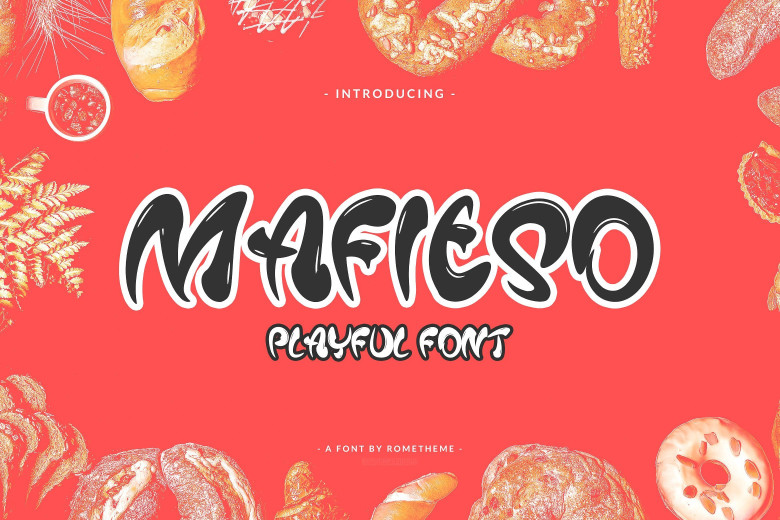
Mafieso Playful Font
A elegance brush font. Introducing Mafieso. Mafieso is an created by Rometheme. Mafieso is a playful font. Mafieso a display font for packaging, logo, branding, website headline, food menu, kids or woman apparel designs, signatures, and all project design other. Mafieso comes with sweet, playful, cute style. It contains a full set of uppercase letters, a large range of punctuation, and numerals.